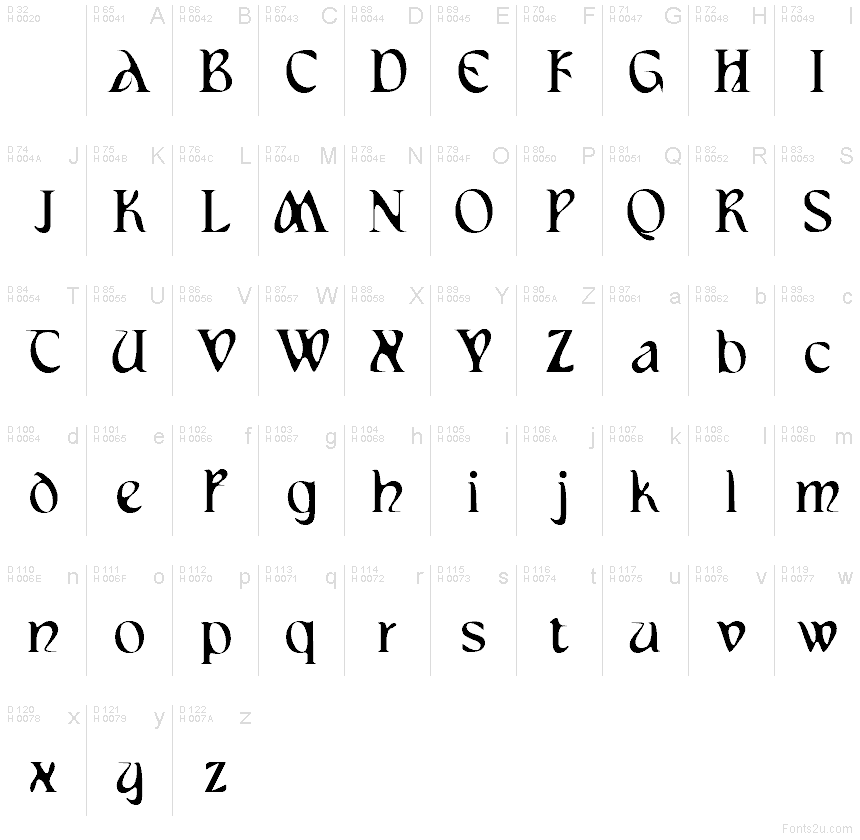
CSValconDrawn-Regular Demo
CS Valcon Drawn font by Craft Supply Co. is a distinctive display font with vintage aesthetics. Its classic, sophisticated appearance is achieved through high-contrast lettering and elegant decorative elements. The free calligraphy font combines a traditional classy appearance with unique contemporary touches.
A great choice for headlines and any other text elements, this font is ideal for blogs, websites, packaging, social media posts, posters, magazines covers, branding and more.
CS Valcon Drawn Demo